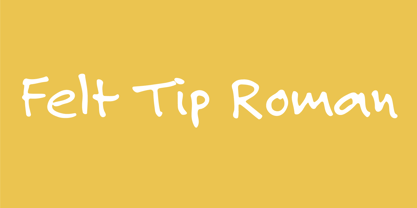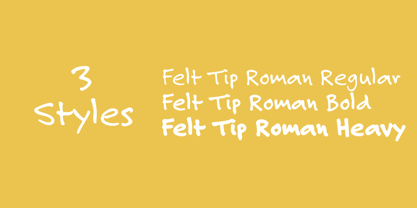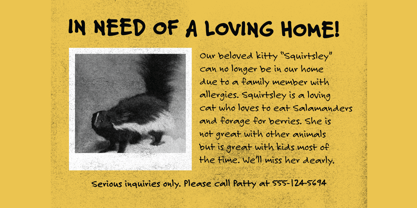
Felt Tip Roman™
por Mark Simonson Studio
La familia tipográfica Felt Tip Roman fue diseñada por Mark Simonson y publicada por Mark Simonson Studio. Felt Tip Roman contiene 3 estilos. Más información sobre esta familia
Felt Tip Roman began as an experiment in 1989--a straight adaptation of the designer's handwriting. The Bold and Heavy weights were added in 2003 to broaden the usefulness of this very popular typeface.
Diseñadores: Mark Simonson
Fundición: Mark Simonson Studio